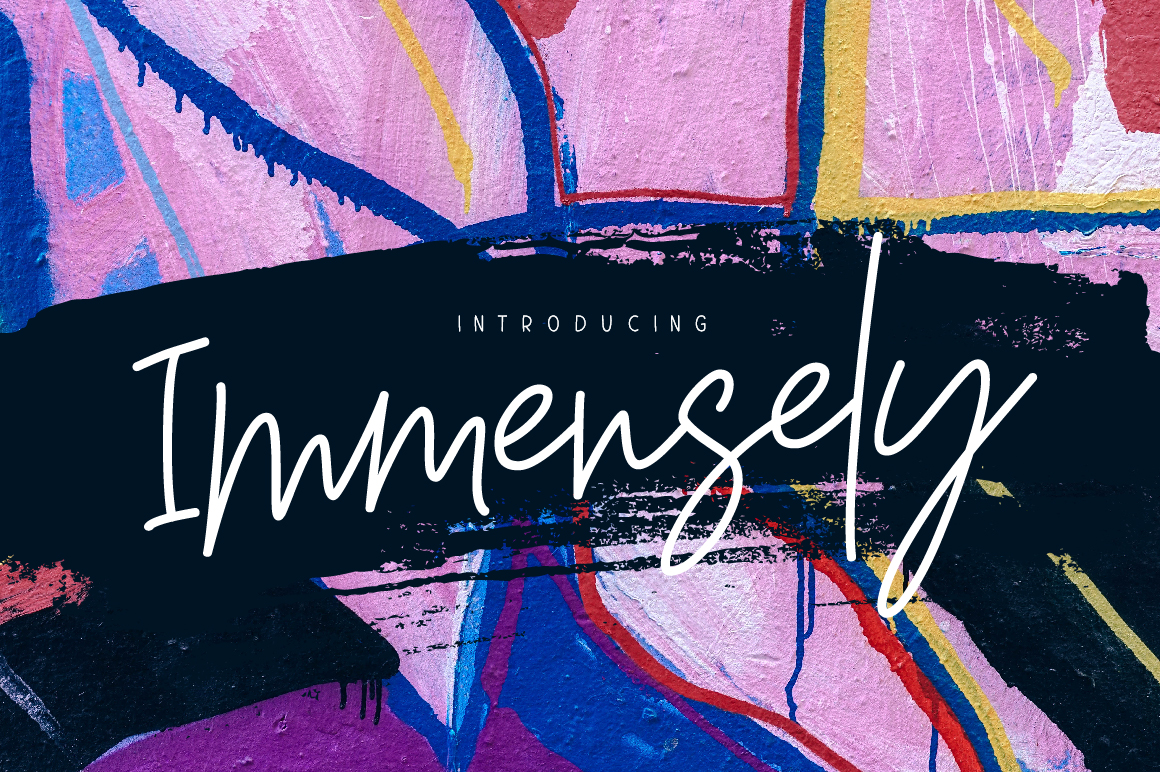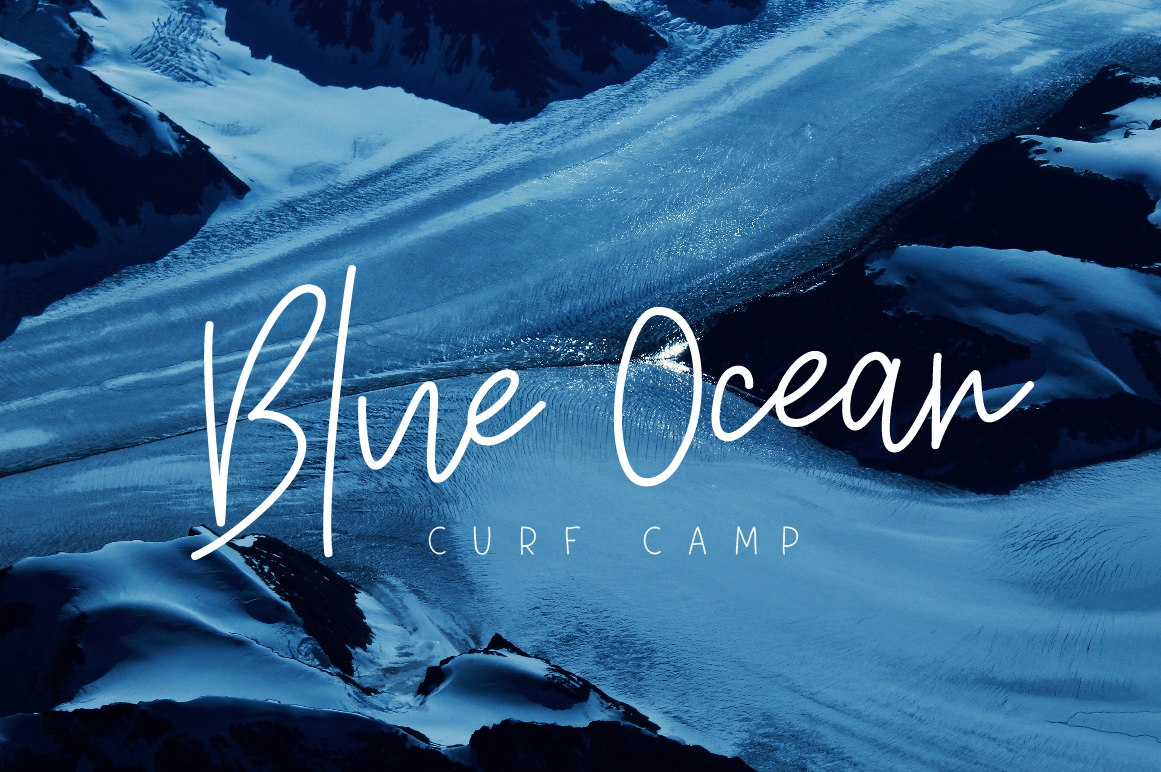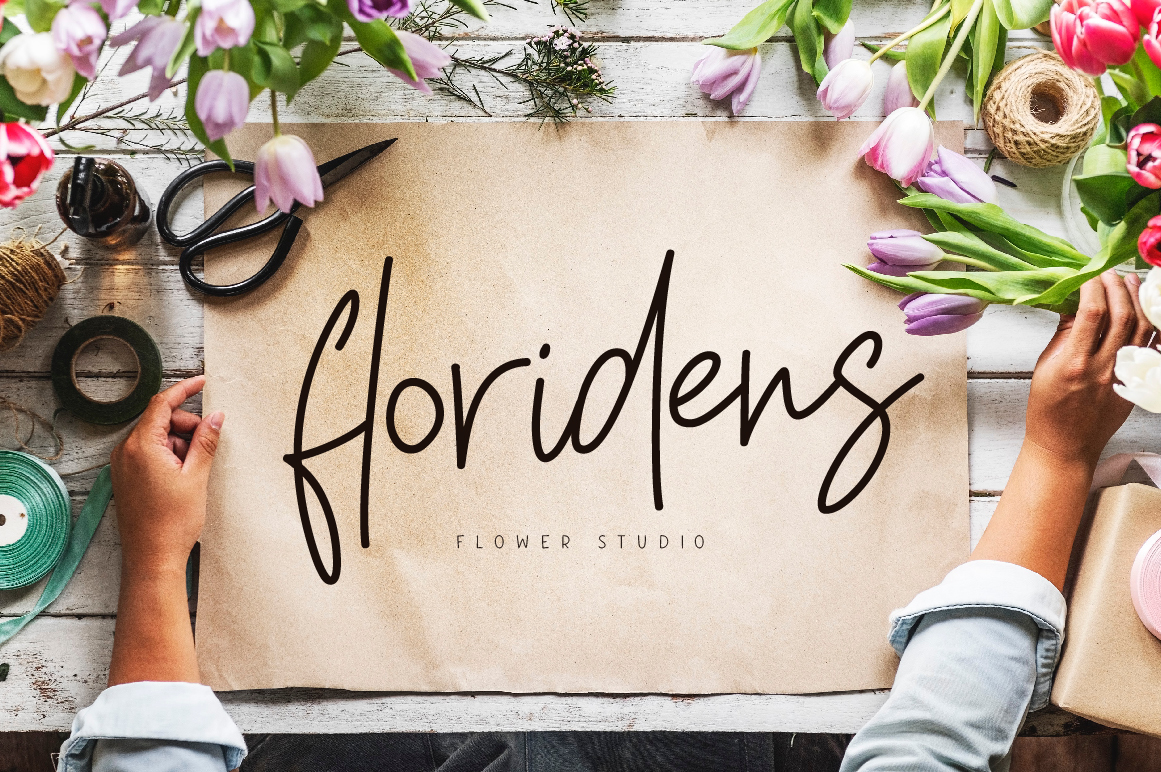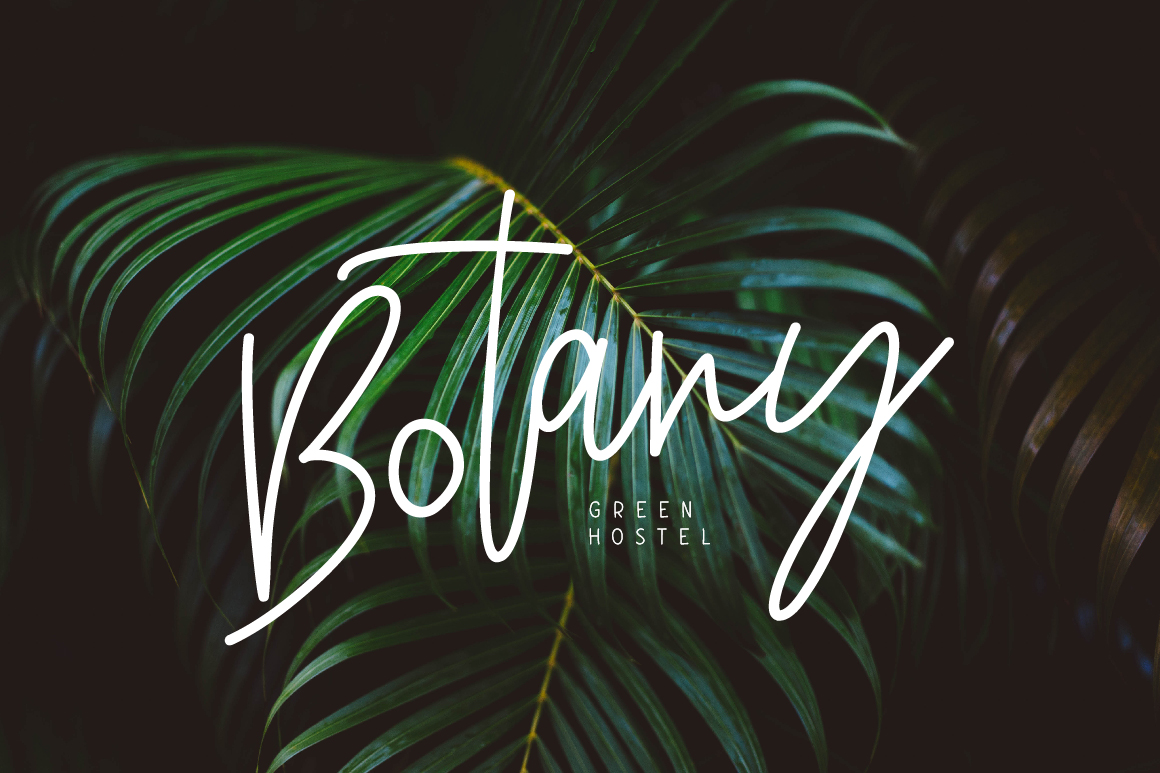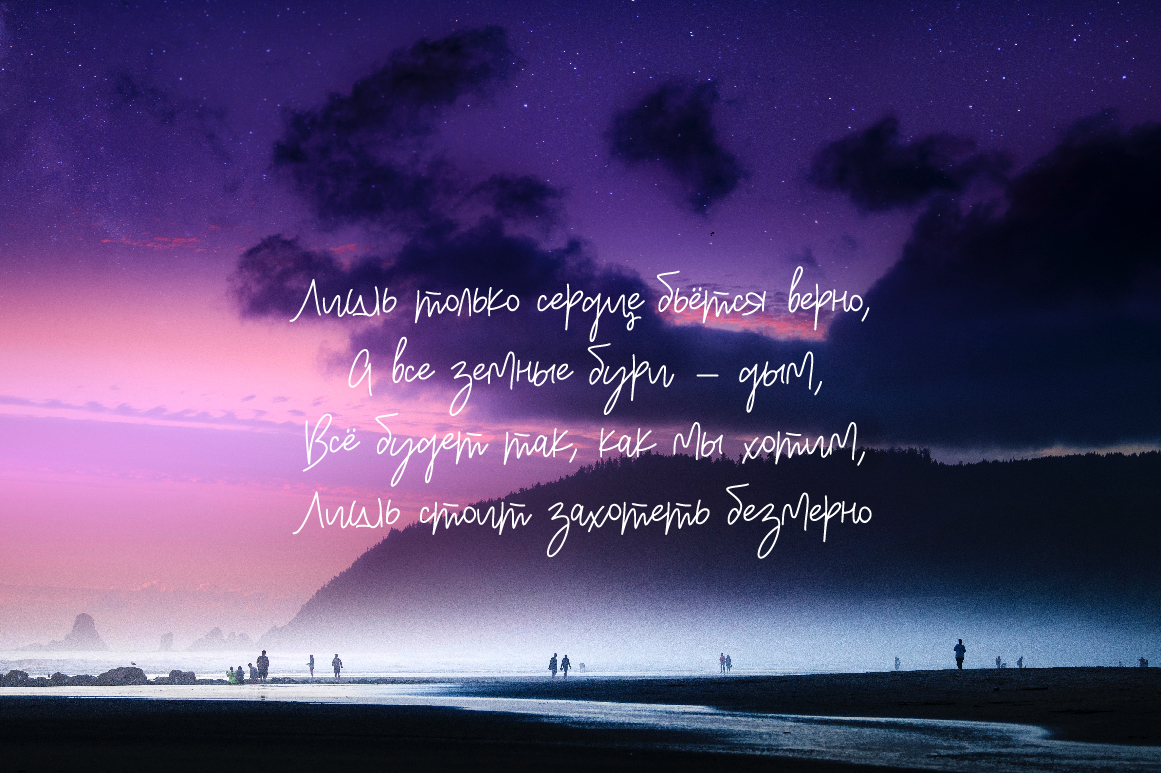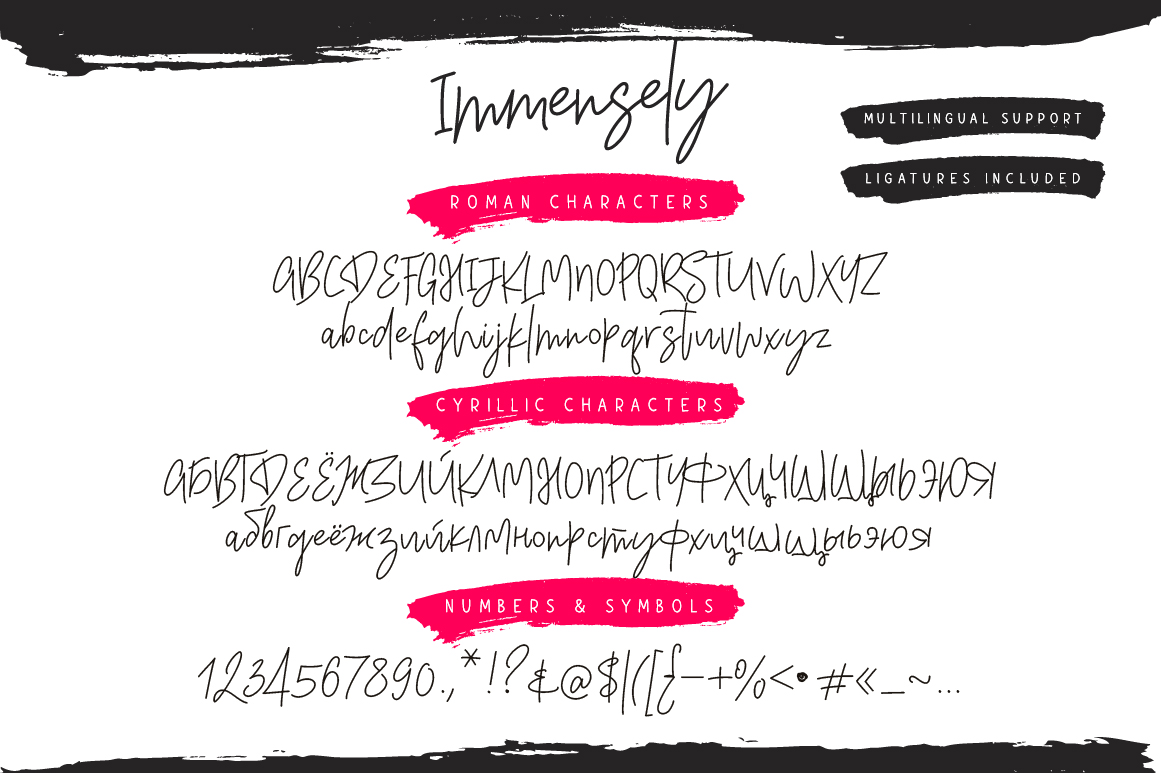
Immensely Font
About Immensely Font
Immensely is a stylish monoline script font, perfect for modern designs and projects. This font has a carefree edginess given its free flow and casual baseline.